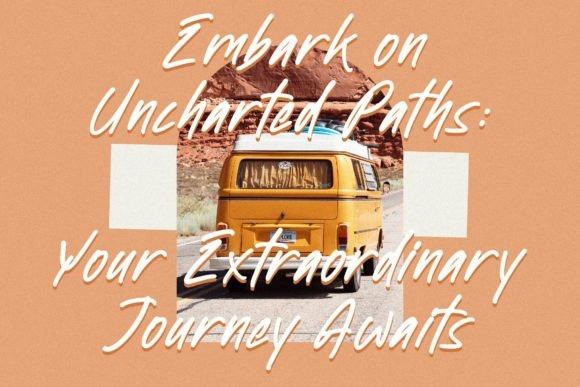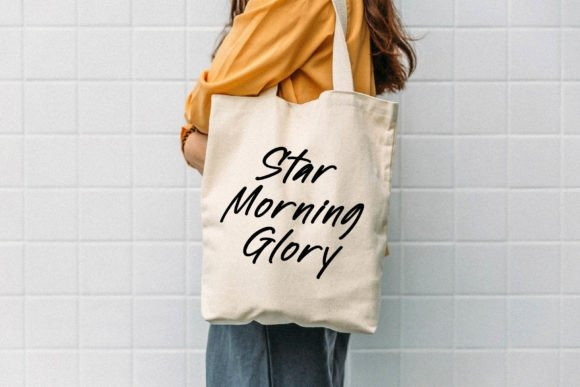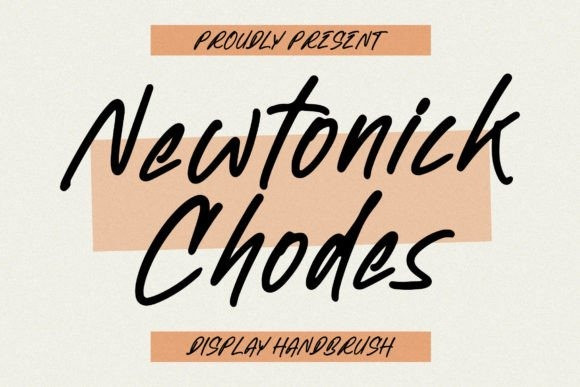
Newtonick Chodes Font
Newtonick Chodes Font is a smooth and elegant script handwritten font, perfect fo use on logos, branding projects, homeware designs, product packaging, mugs, quotes, posters, shopping bags, t-shirts, book covers, name card, invitation cards, greeting cards, label, photography, watermark, special events, and all your other lovely projects that need a beautiful script taste.